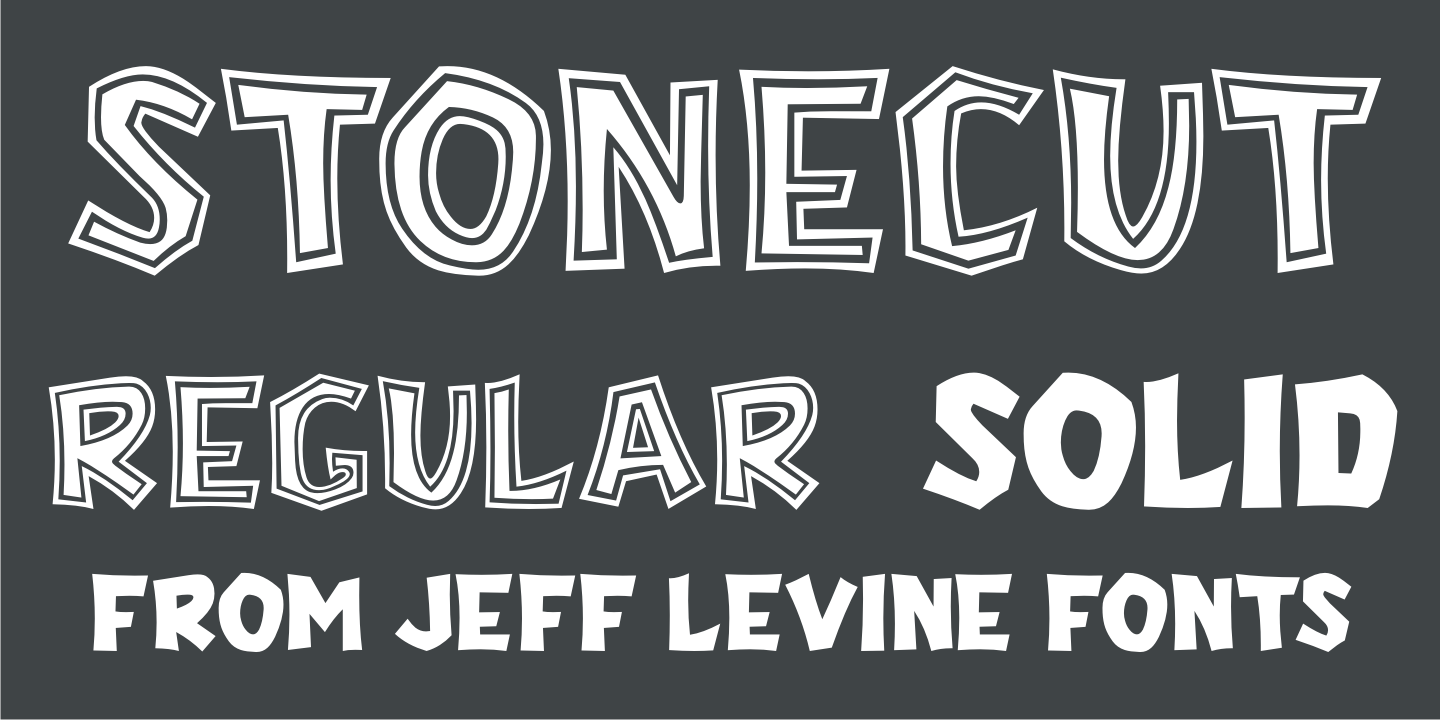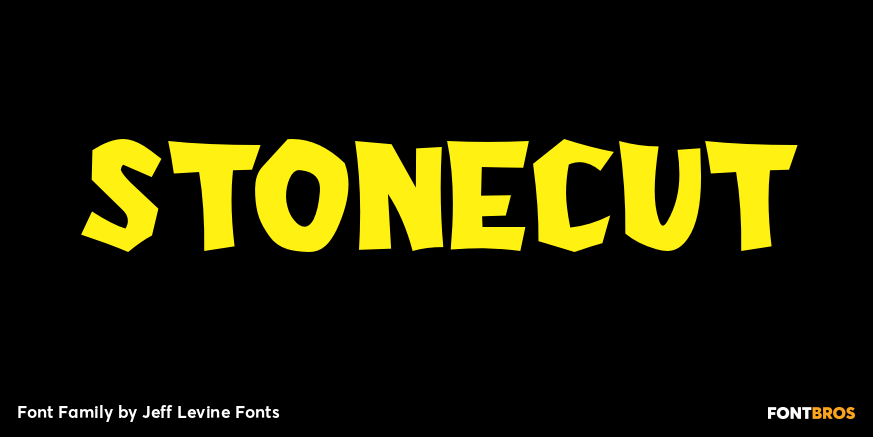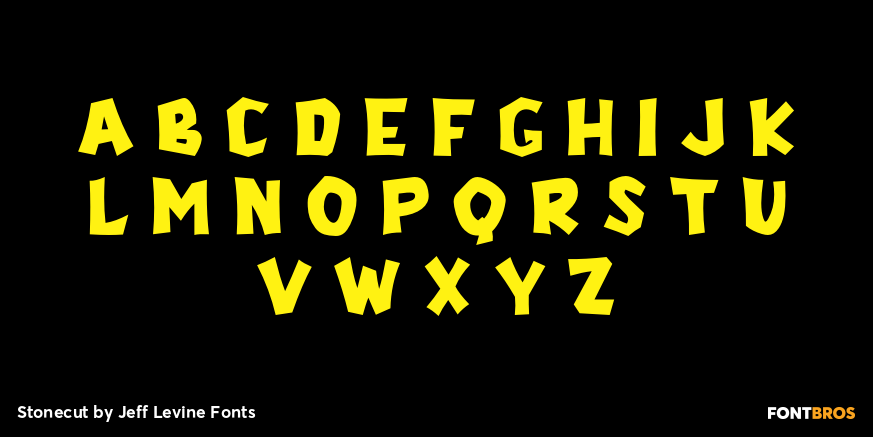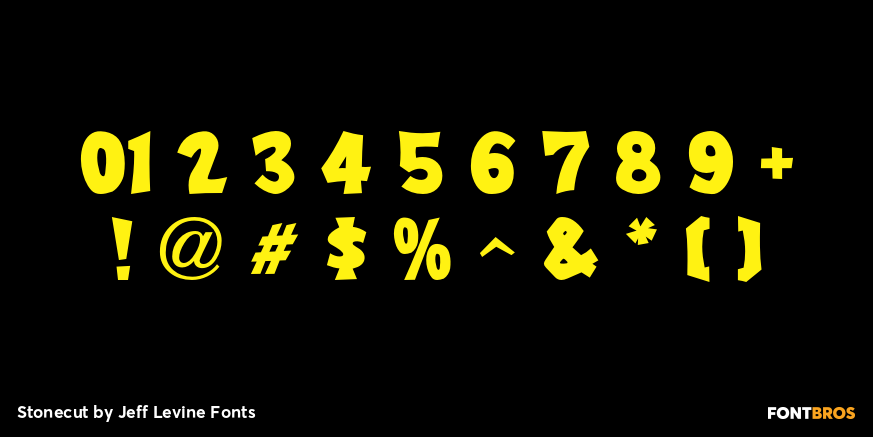
Stonecut
Stonecut JNL is an adaptation of a novelty display face found in one of the Dan X. Solo lettering books. Resembling letters made from cut stone, both the inline and solid black versions are perfect for themes encompassing outdoors, the Stone Age, 'macho' events or anything where an unpolished or rustic look can be adapted.
Stonecut by Jeff Levine Fonts